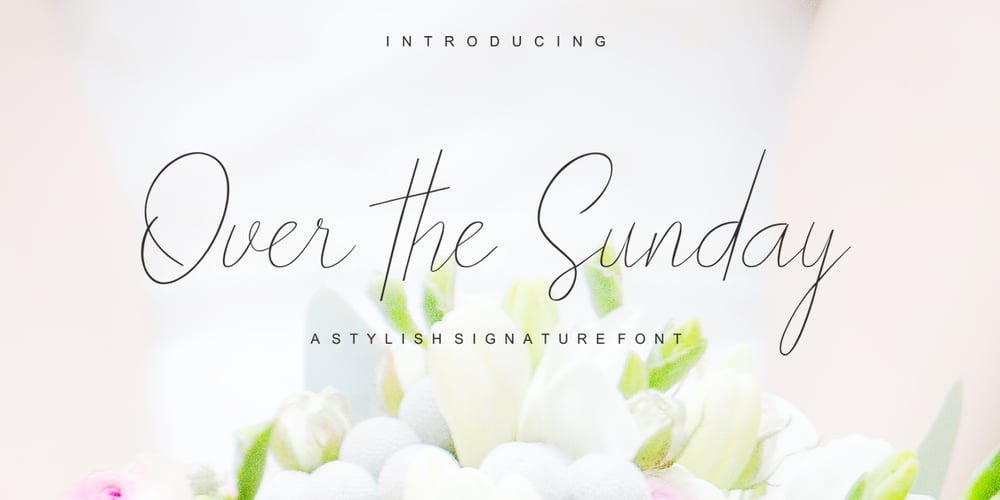
Over the Sunday Slant
Over the Sunday Slant font
Over the Sunday Slant Font Family was designed by Teuku Zulfikar and published by Josstype. Over the Sunday Slant contains 1 styles and family package options. Over the Sunday Signature Font is signature style font with stunning characters, including Regular and Slant. This font is casual and pretty with swashes. Can used for various purposes. such as logo, product packaging, wedding invitations, branding, headlines, signage, labels, signature, book covers, posters, quotes and more.Over the Sunday Signature Font features OpenType stylistic alternates, ligatures and International support for most Western Languages is included. To enable the OpenType Stylistic alternates, you need a program that supports OpenType features such as Adobe Illustrator CS, Adobe Indesign & CorelDraw X6-X7, Microsoft Word 2010 or later versions.How to access all alternative characters using Adobe Illustrator: